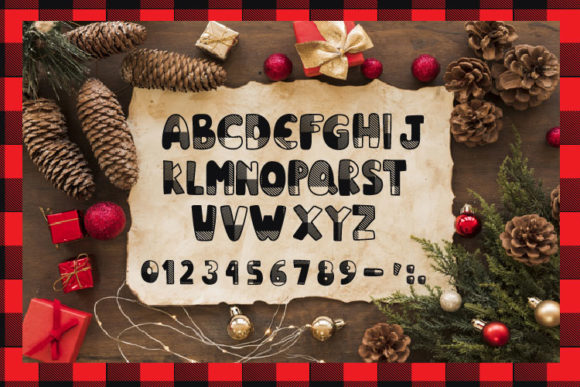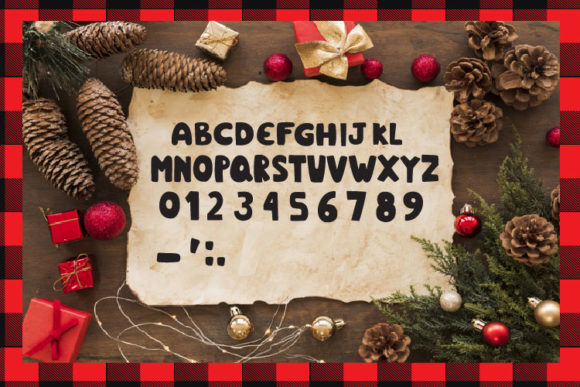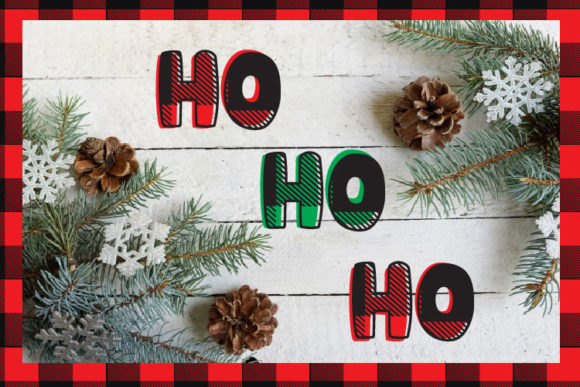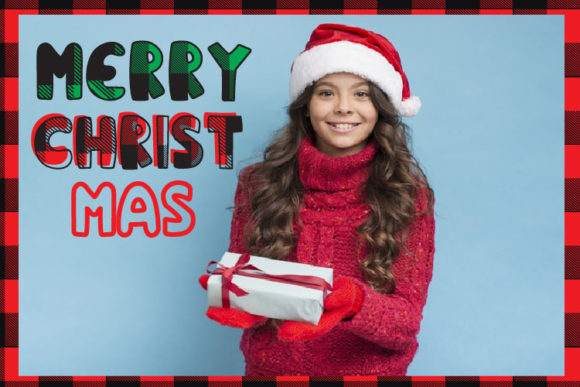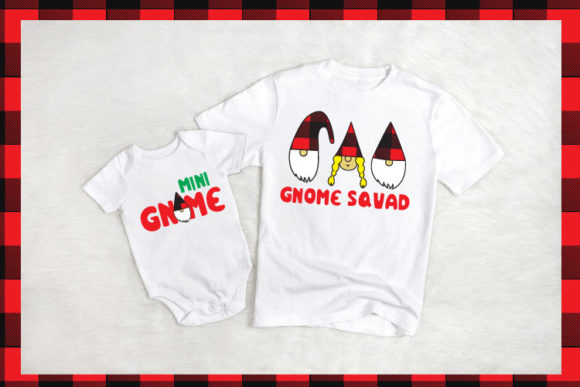
Get Ready to Deck the Halls with Style: Christmas Plaid Font
It’s that time of the year again – the moment when creativity runs wild, and the festive spirit takes over. As you begin planning your holiday crafts, decorations, and cards, the excitement builds up. But have you ever thought about taking your Christmas projects to the next level with a special touch? For designers and crafty enthusiasts, the key to making your creations stand out lies in the perfect font – and that’s exactly where the Christmas Plaid Font comes in.
This lovely display font is designed to add a touch of rustic charm and festive flair to your holiday projects. Whether you’re making handmade cards, gift tags, or decorations, the Christmas Plaid Font is sure to make them look awesome. Its versatility and unique design make it a valuable addition to any designer’s toolkit, allowing you to create one-of-a-kind pieces that reflect your personal style.
Christmas Plaid Font Key Features
- Font Family: Christmas Plaid Font is a custom-designed font family with a festive and traditional plaid pattern.
- Character Set: The font includes a wide range of characters, including uppercase and lowercase letters, numbers, punctuation marks, and special characters.
- Unique Characteristics: The font’s distinctive plaid pattern and festive design make it perfect for Christmas-themed projects, holiday cards, and gift wrapping.
Designer Review: Christmas Plaid Font
Overall, I think the Christmas Plaid Font is a fun, unique addition to any holiday design project. ✨ Here are some of its strengths:
- Playful and festive vibe: This font perfectly captures the spirit of Christmas with its plaid pattern and bold, cheerful style.
- High-resolution design: The font is well-crafted and looks great at various sizes and resolutions.
- Easy to use: It’s a breeze to apply the font to any design element, from headings to body text.
- Limited versatility: While the font is perfect for holiday designs, it may not be the best choice for everyday or non-holiday projects.
- Potential for overuse: The bold, plaid design can be overwhelming if used excessively.
- Not ideal for small text: The font’s bold style may not be suitable for small text sizes, making it difficult to read.
Overall, I think the Christmas Plaid Font is a great choice for designers looking to add some holiday cheer to their projects. While it may have some limitations, its playful vibe and high-quality design make it a fun and effective tool for any holiday design project.
Getting the Most Out of the Christmas Plaid Font
To get the most out of the Christmas Plaid Font, try using it in bold and italic styles for added visual interest.
Use it to create festive headings and titles for your designs.
The Christmas Plaid Font is perfect for creating festive holiday designs, such as:
Invitations and party decorations.
Gift tags and gift wrapping.
Christmas cards and holiday greetings.
Alternatives to Christmas Plaid Font for Designers
1. Winter Wonderland Font
Winter Wonderland Font is a festive, cursive font perfect for holiday greetings, gift tags, and social media posts. Its elegant and whimsical design adds a touch of magic to any winter-themed project.
Comparison to Christmas Plaid Font: Winter Wonderland Font is more elegant and cursive, while Christmas Plaid Font is bold and playful. Use Winter Wonderland Font when you want to add a touch of sophistication to your holiday design.
2. Holly Berry Font
Holly Berry Font is a fun, bold font featuring holly leaves and berries. It’s ideal for festive posters, invitations, and packaging designs. Its playful design adds a pop of color and energy to any holiday project.
Comparison to Christmas Plaid Font: Holly Berry Font is more playful and bold, while Christmas Plaid Font is more traditional and nostalgic. Use Holly Berry Font when you want to add a fun and modern twist to your holiday design.